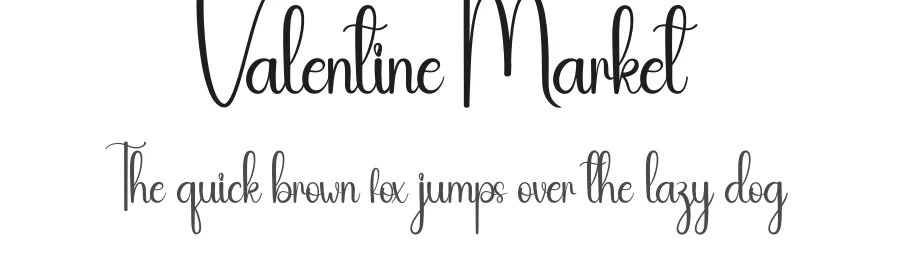
About Bulbous Font
Bulbous Specifications
| Font Family | Bulbous |
| Full Name | Bulbous |
| Glyph Count | 139 glyphs |
| PostScript Name | BulbousRegular |
Bulbous supports 209 languages.
Bulbous Font is a script font that shines as a display or heading face. Pair it with a clean sans-serif or serif font for body text β the contrast creates a clear hierarchy while the two styles stay balanced and easy to read.
Bulbous Font